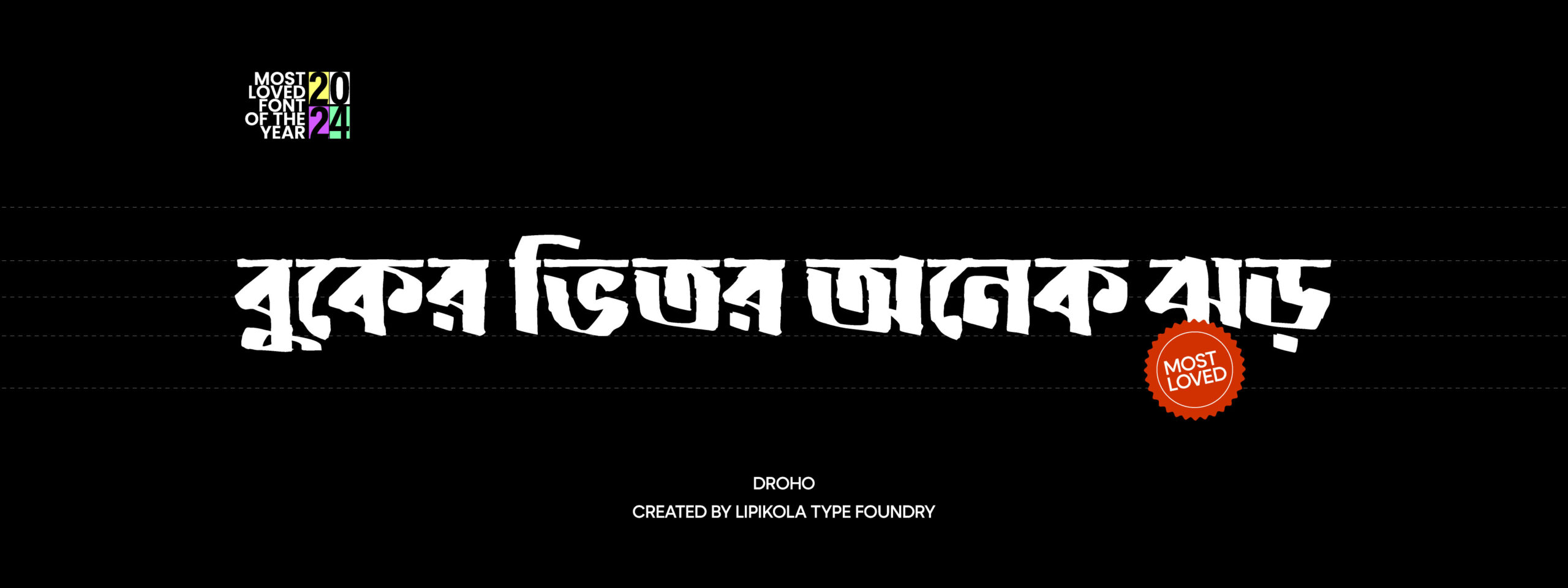
Droho
Designer
Kazi Jubair Mahmud
Droho is a striking and rebellious Bangla typeface from Lipikola, designed to embody strength, defiance, and artistic depth. With its bold, angular strokes and contemporary aesthetics, Droho bridges the gap between tradition and modernity, making it an ideal choice for music, film, branding, and editorial design. Inspired by the spirit of resistance and cultural expression, Droho captures the raw energy of underground movements while maintaining readability and balance. Whether used in powerful headlines or creative compositions, this font demands attention and leaves a lasting impression. Perfect for designers seeking a typeface that speaks with authority, Droho is more than just a font—it’s a voice of expression.
Classifications
Display, Headline
Type Engineer
Kazi Sayeed Mahmud
Publisher
Lipikola Type Foundry
Droho
Designer
Kazi Jubair Mahmud
Droho is a striking and rebellious Bangla typeface from Lipikola, designed to embody strength, defiance, and artistic depth. With its bold, angular strokes and contemporary aesthetics, Droho bridges the gap between tradition and modernity, making it an ideal choice for music, film, branding, and editorial design.Inspired by the spirit of resistance and cultural expression, Droho captures the raw energy of underground movements while maintaining readability and balance. Whether used in powerful headlines or creative compositions, this font demands attention and leaves a lasting impression.Perfect for designers seeking a typeface that speaks with authority, Droho is more than just a font—it’s a voice of expression.
Classification
Display, Headline
Type Engineer
Kazi Sayeed Mahmud
Publisher
Lipikola Type Foundry